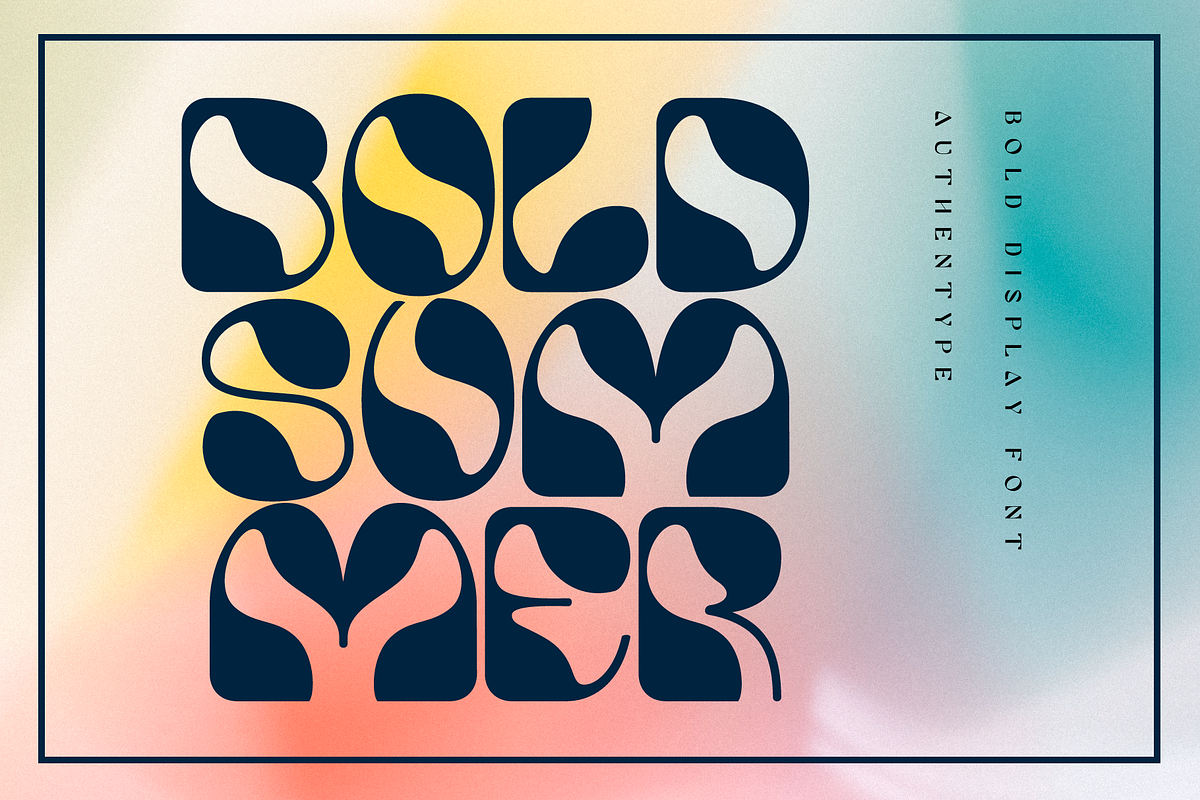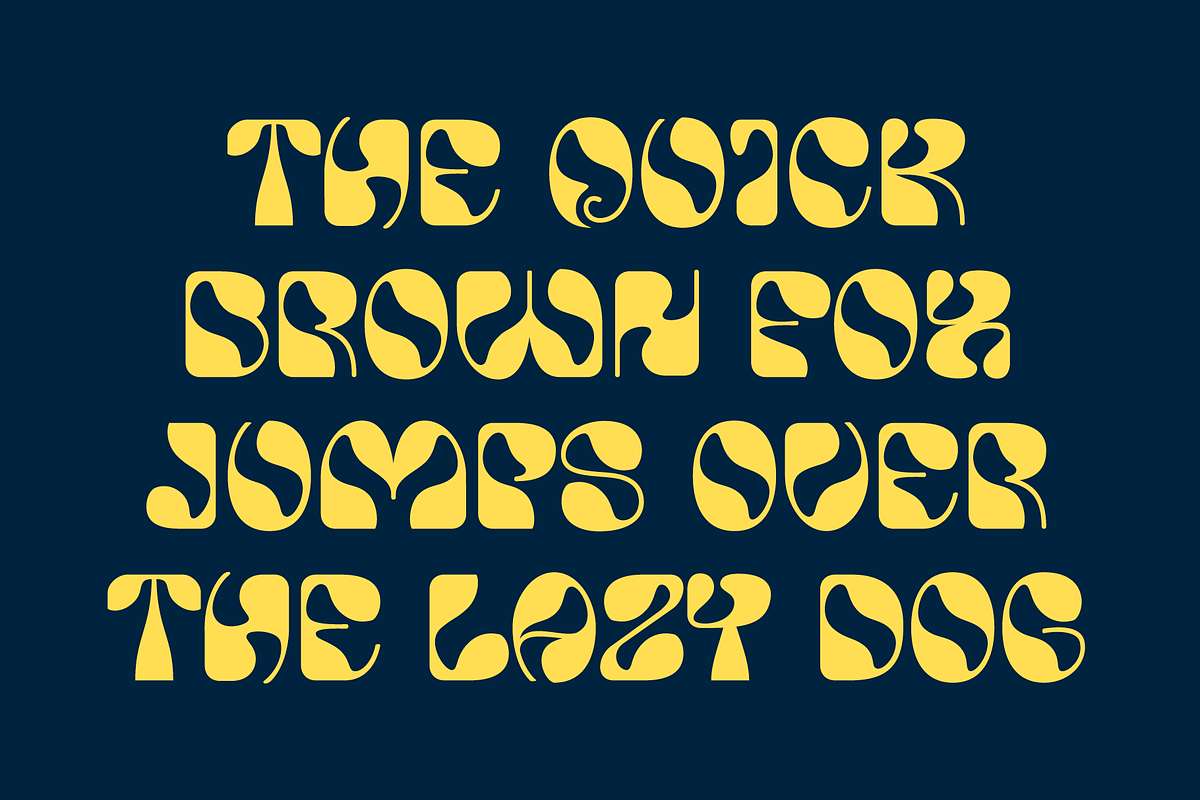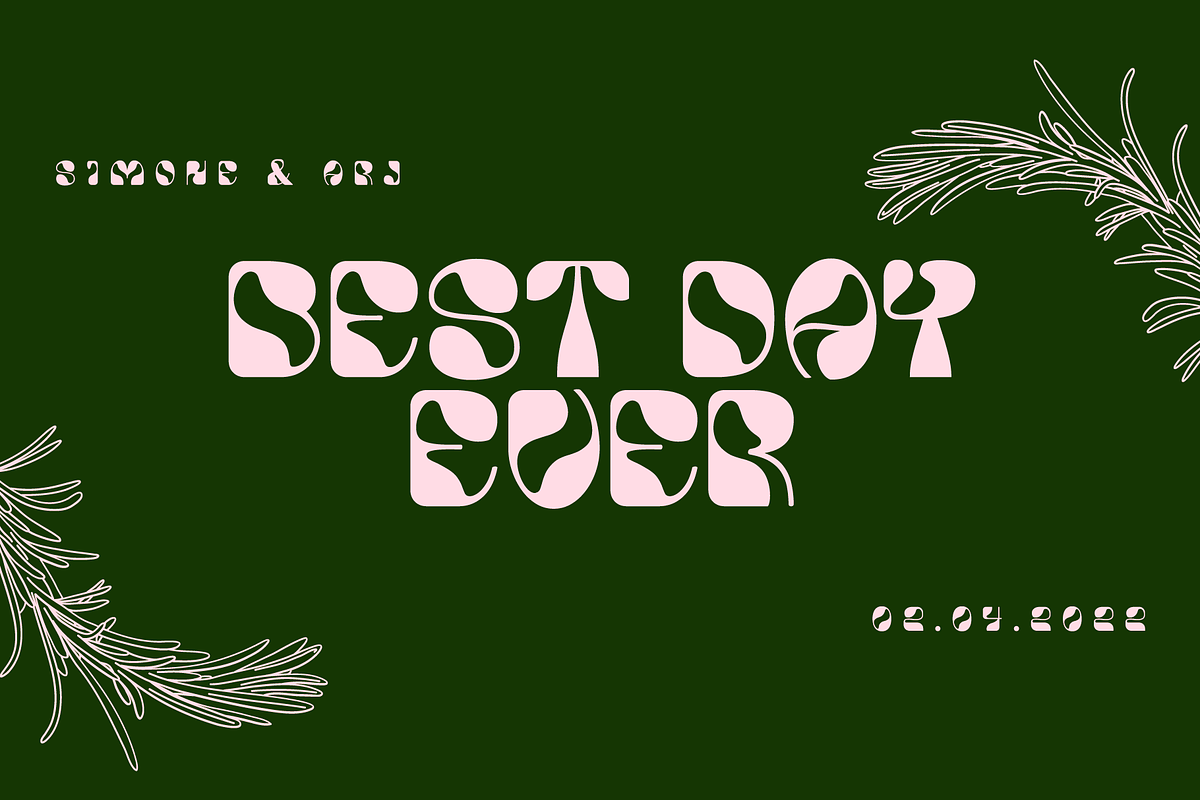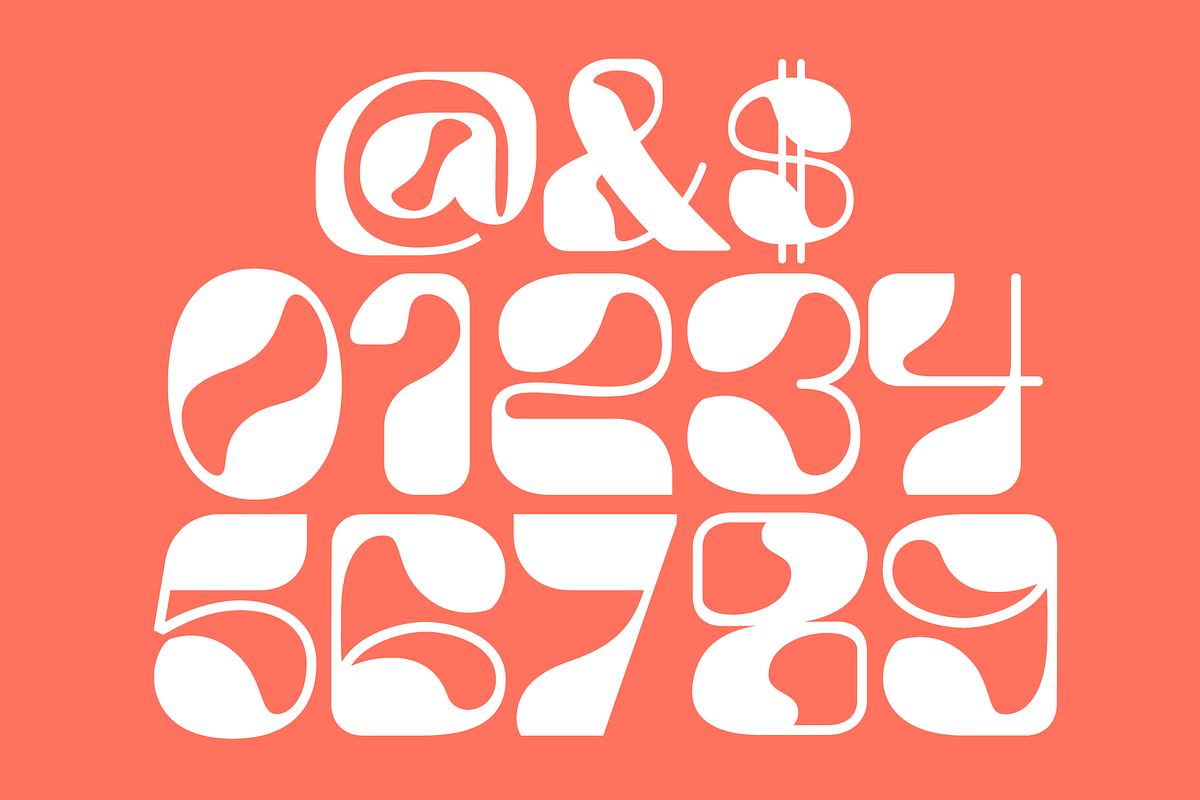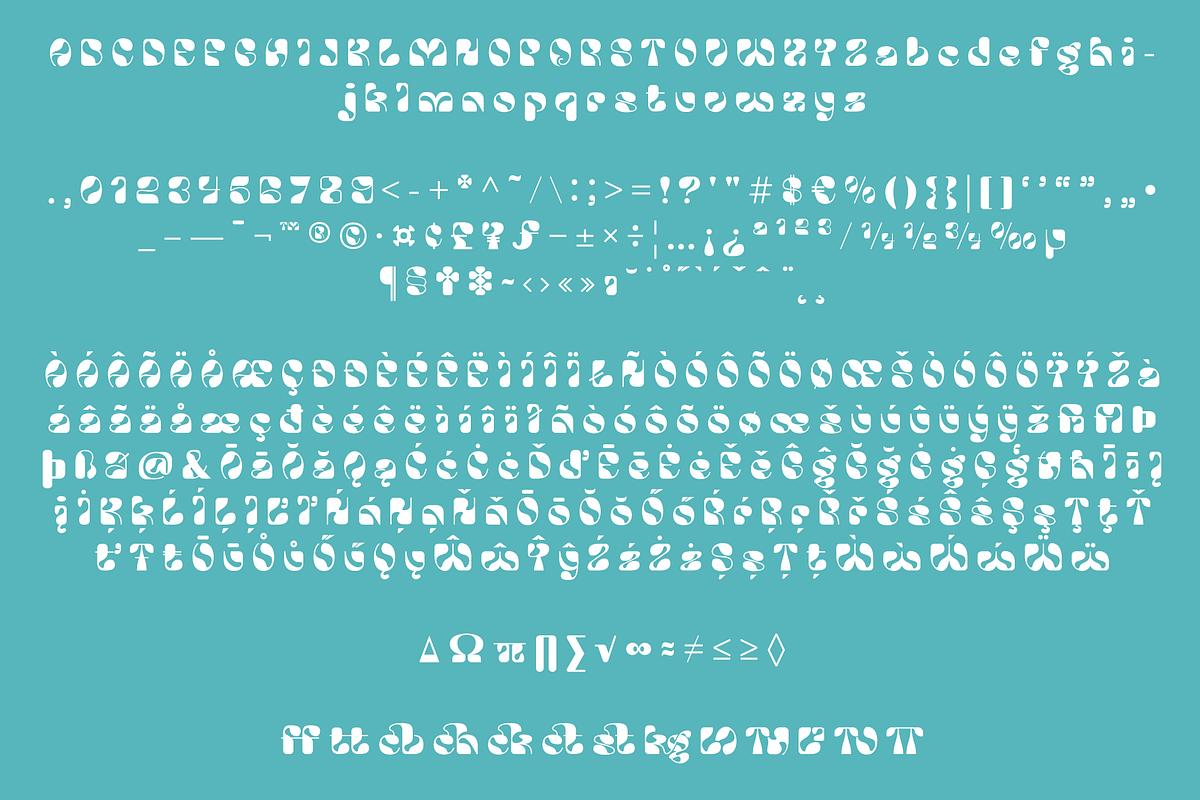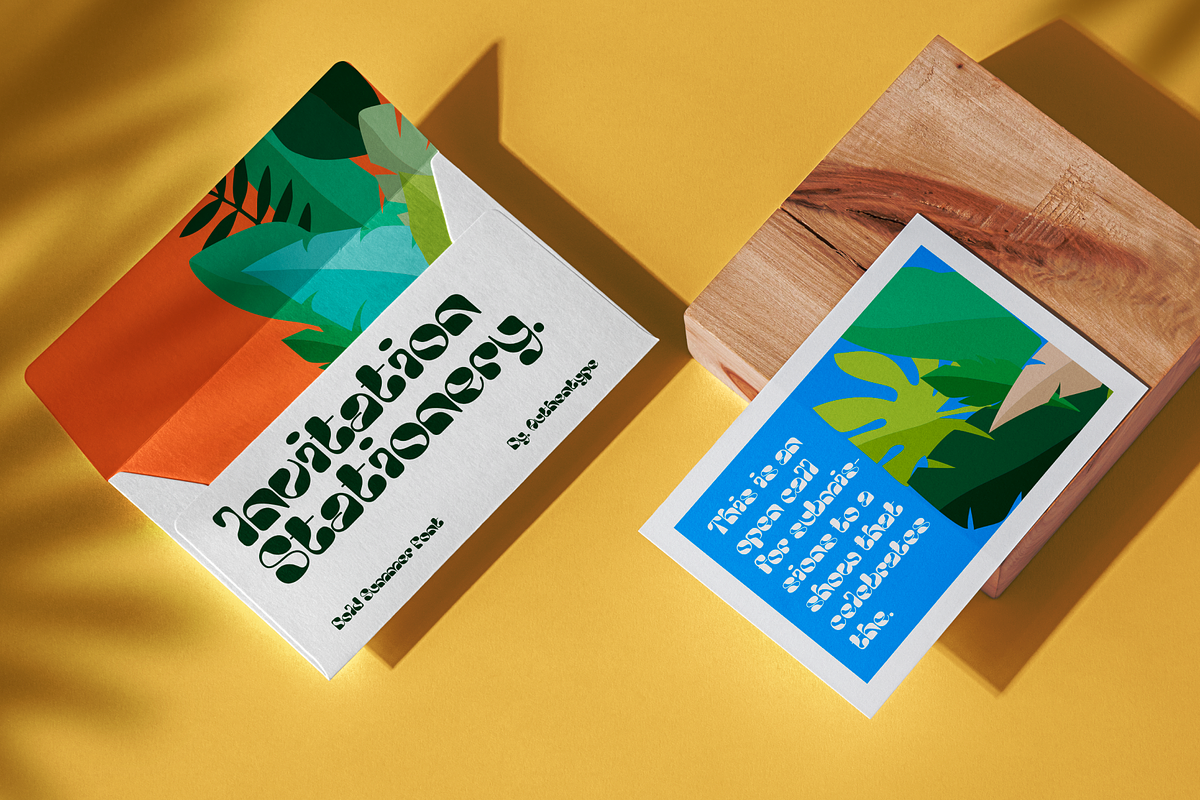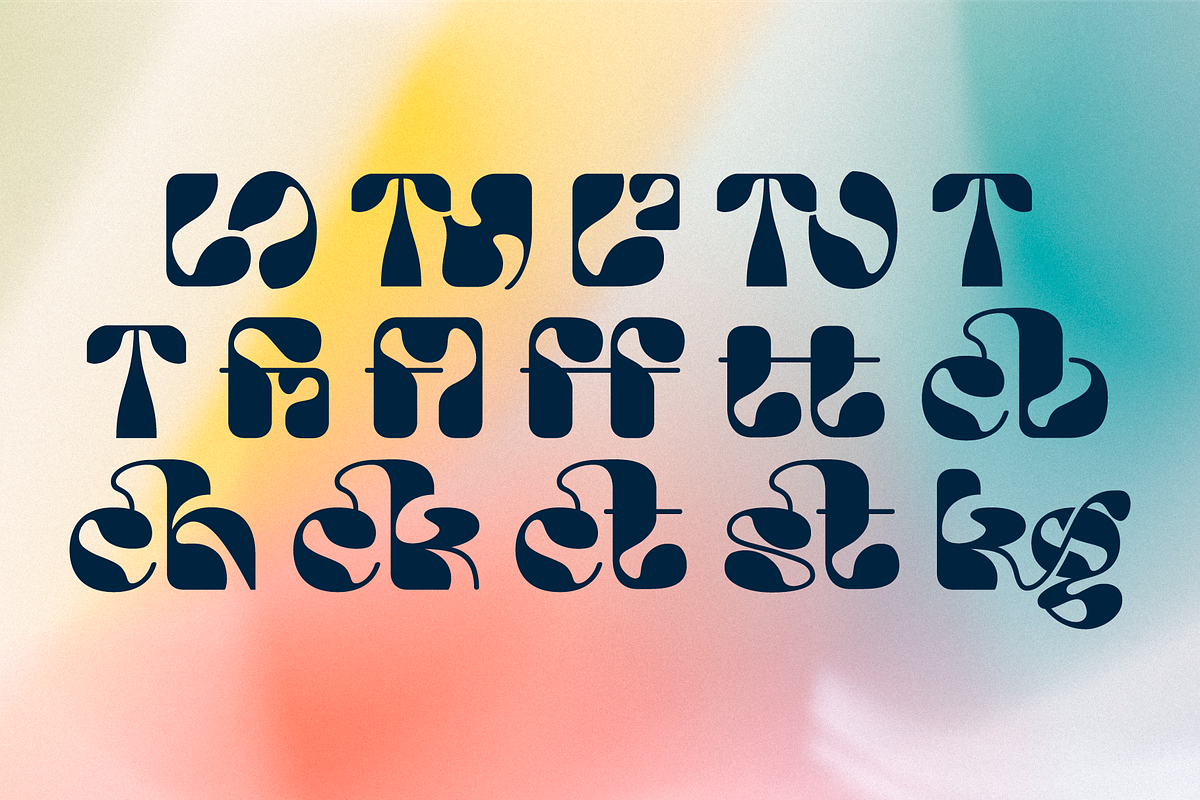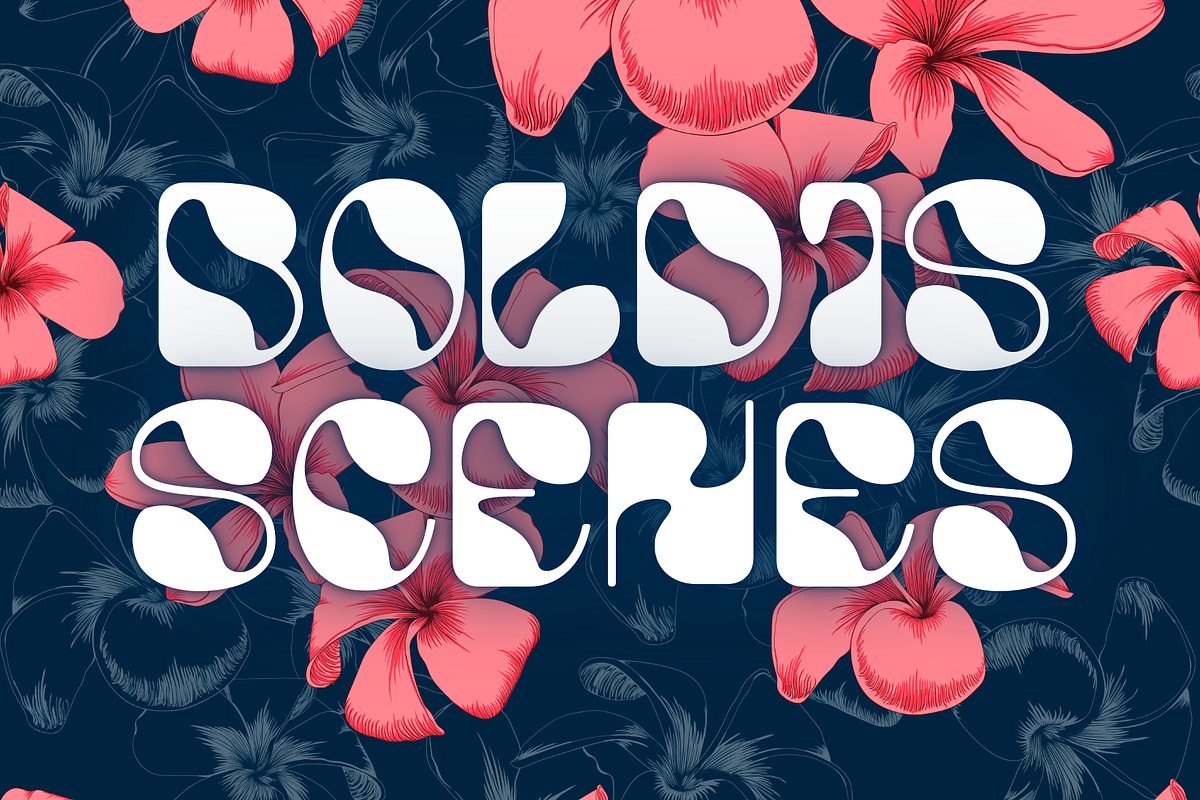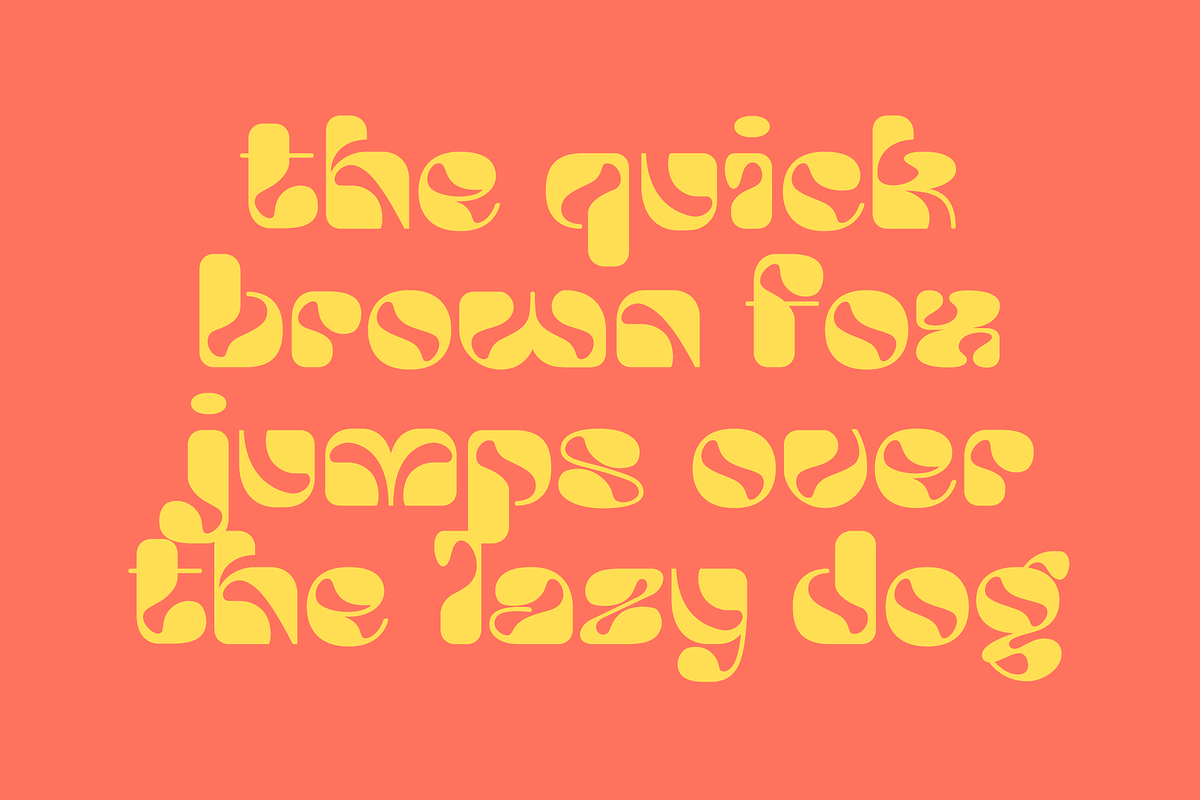
Bold Summer - Bold Display Font
Bold Summer bold display font for happy projects.
This bold, cheerful font is perfect for any of your summer projects! Create a warm, happy mood in your design with this rollercoaster-ride of a font. Add this font to your collection and you’ll be on the way to a happy summer!
- Standard glyphs uppercase and lowercase letters
- Numerals, a large range of punctuation and ligatures
- Multilingual support for; ä ö ü Ä Ö Ü ß ¿¡